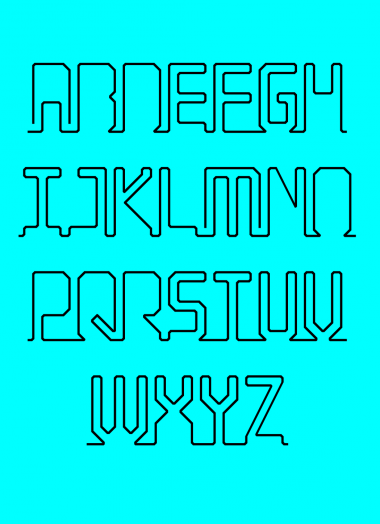
This is awesome
Nice work, bro! Too bad "Inline Competition" has over.
@cablecomputer thanks. i joined fonstruct after it had finished but i was quite intrigued by the script comp. i think this would have fit in nicely.
I agree, this would have done well in either competition!
Congratulations! FontStruct Staff have deemed your FontStruction worthy of special mention. “wire” is now a Top Pick.
Great work. I like! ;)
La Linea would have been a name for this one as well: https://www.youtube.com/watch?v=skb2gKR7rOk
Great!
La Linea! I remember that! What a great frame-by-frame serie of animation. I saw it at the old TVE channel (the spanish TV) when I was veeeery young, pals!
BTW, I was probing some similar for the FS ScriptComp, but yours is great! Congrats!
Great idea and well executed.
Wow, i've been trying to execute my own version of a wire font, but man, I couldn't have done it better than you! aweseome. 10/10